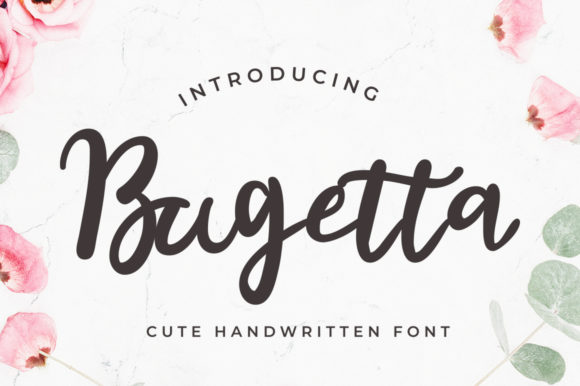
Unleash your creativity with Bugetta, a script font bursting with elegance and charm. This exquisite handwritten font is perfect for adding a touch of personality to your designs, whether you're a seasoned pro or just starting. With its flowing lines and graceful curves, Bugetta will transform your words into captivating works of art.
Imagine your designs adorned with Bugetta's enchanting characters, captivating your audience with their timeless beauty. From wedding invitations to heartfelt letters, from social media posts to stunning logos, Bugetta is the perfect font to add a touch of magic to any project. Let your imagination soar as you explore the endless possibilities that await with Bugetta.
With Bugetta, you'll discover a font that's not just versatile, but truly inspiring. Its delicate strokes and elegant flourishes will add a touch of sophistication to your designs, while its graceful flow will create a harmonious and visually pleasing aesthetic. Bugetta is the perfect choice for expressing your creativity and making a lasting impression.